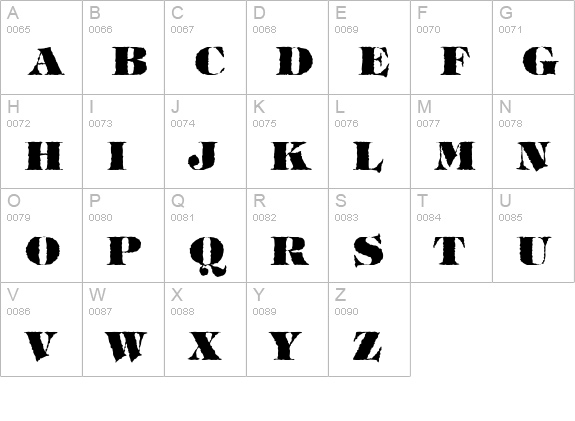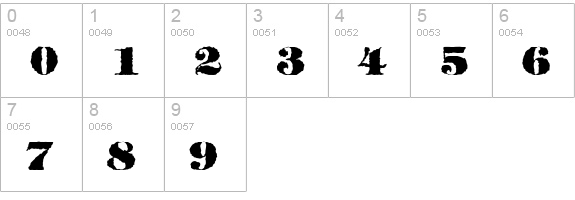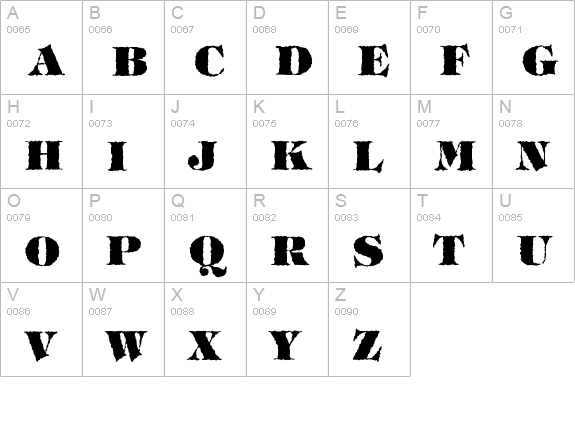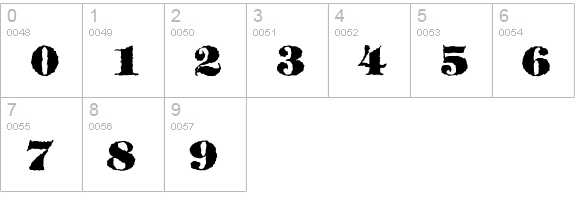
Grunge Stangl Heavy is a heavy, high-impact variant in the Grunge typeface family \xE2\x80\x94 well suited to high-impact headlines, posters, and display advertising.
Grunge Stangl Heavy font is a bold and rugged typeface that exudes a raw and edgy vibe. Its rough, distressed appearance adds a sense of depth and character to any design project, making it perfect for conveying a rebellious or vintage aesthetic. The heavy weight of the font gives it a powerful presence, making it ideal for headlines, posters, and other display purposes. What's even better is that Grunge Stangl Heavy font is completely free to download at FontsMarket.com. This means that you can easily access this unique and eye-catching font to enhance your creative projects without any cost involved. Whether you're working on a grunge-inspired poster, a rock band logo, or a gritty branding project, Grunge Stangl Heavy font is sure to make a bold statement and leave a lasting impression. Download it today and unleash its raw energy in your designs!